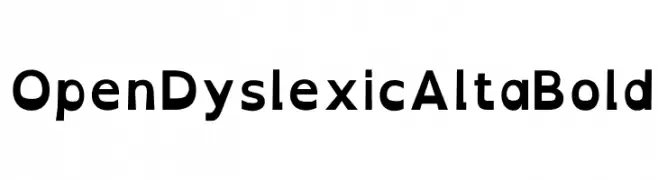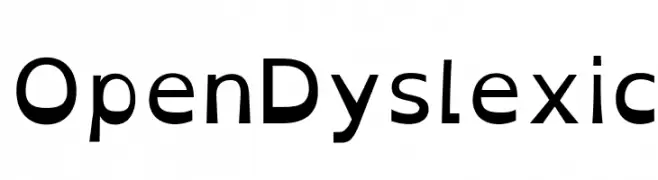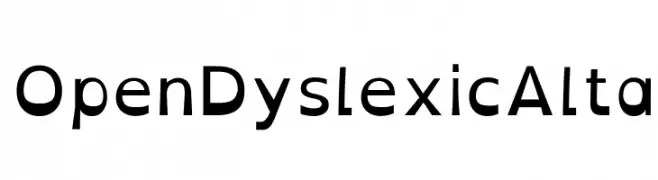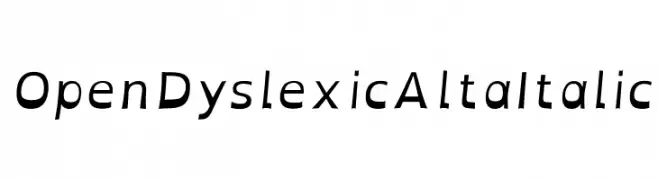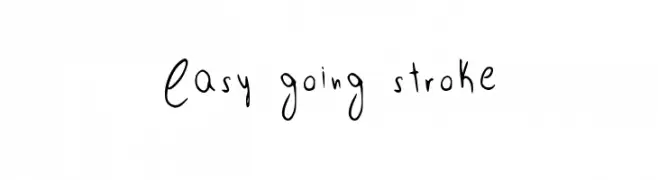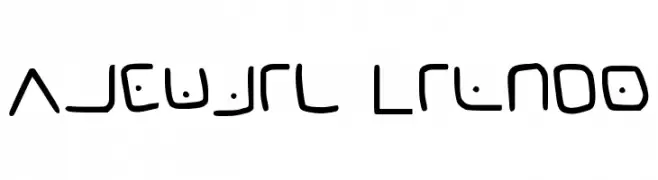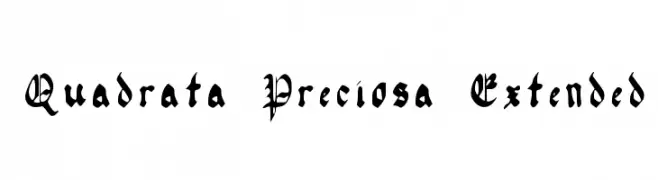
( Abelardo Gonzalez - abbiecod.es )
A bold, accessible font designed to enhance readability with unique, distinguishable letterforms.
( Abelardo Gonzalez - abbiecod.es )
A readability-focused font with distinct shapes and heavier bottoms, aiding dyslexic readers.
( Abelardo Gonzalez - abbiecod.es )
A dyslexia-friendly font with distinct, weighted letterforms for improved readability.
( Abelardo Gonzalez - abbiecod.es )
An accessible, italic font with distinct, weighted letterforms for enhanced readability.
( FlipDarius - Felipe Dário - felipedario.com/ )
A bold, graffiti-inspired font with a rugged, brush-like texture.
( Insane Machina - Fernando Henrique de Sousa - www.insanemachina.com )
A playful, casual handwritten font with irregular strokes and a whimsical style.
( Insane Machina - Fernando Henrique de Sousa - www.insanemachina.com )
A modern blackletter font with sharp, angular lines and intricate detailing.
( Insane Machina - Fernando Henrique de Sousa - www.insanemachina.com )
A modern vintage font with tall, narrow letterforms and moderate contrast.
( Insane Machina - Fernando Henrique de Sousa - www.insanemachina.com )
A cryptic, rune-like font with geometric shapes and uniform strokes.
( Insane Machina - Fernando Henrique de Sousa - www.insanemachina.com )
A decorative blackletter font with bold, intricate letterforms.